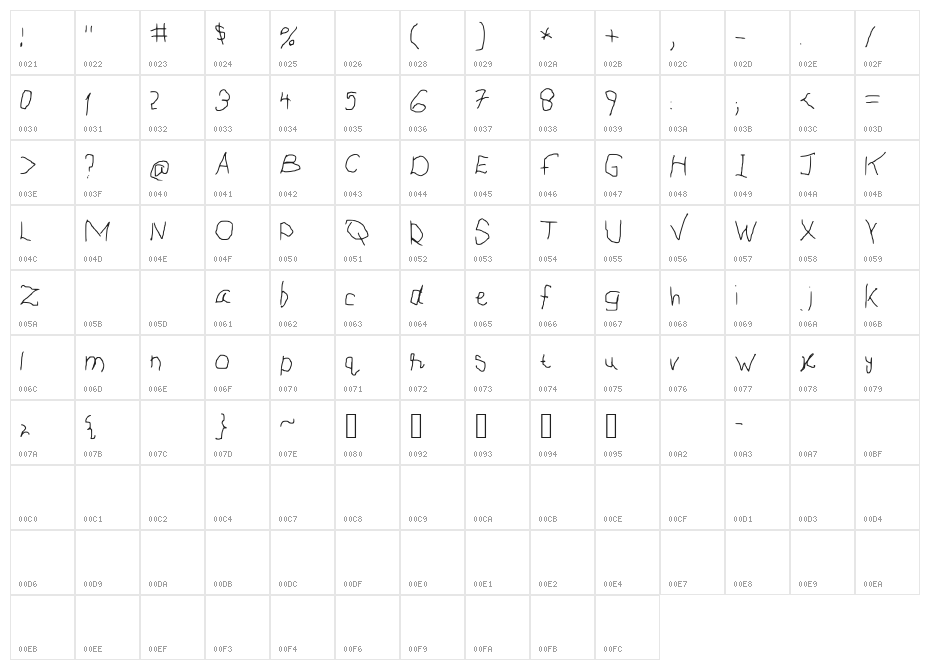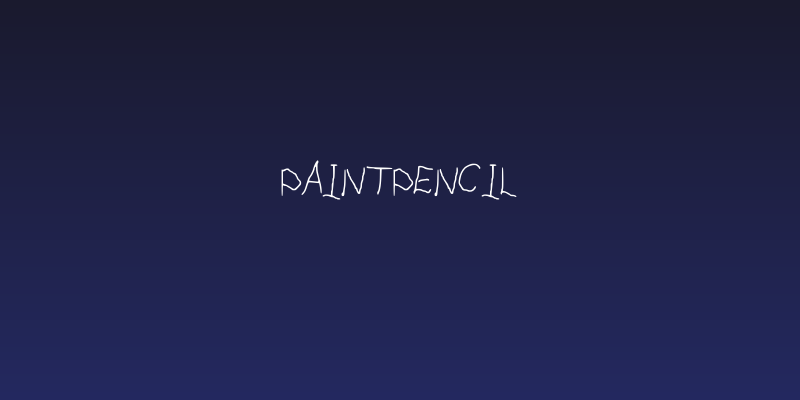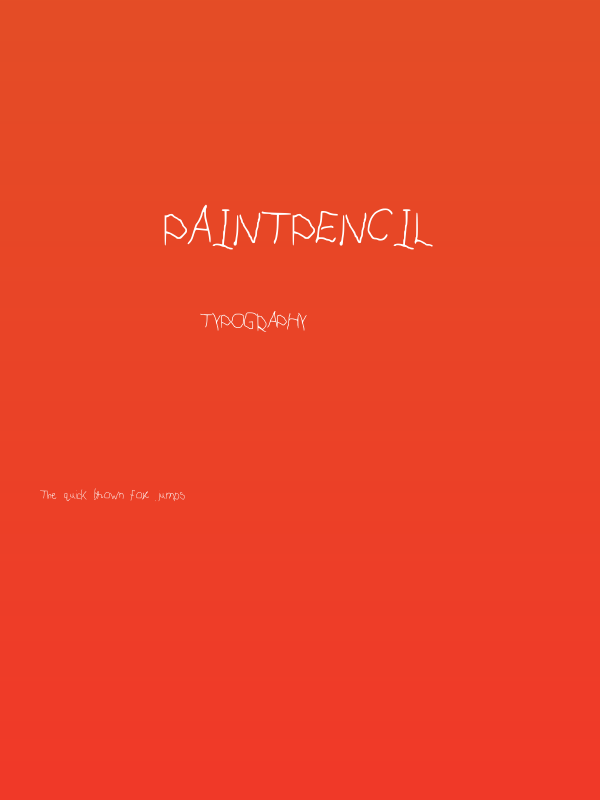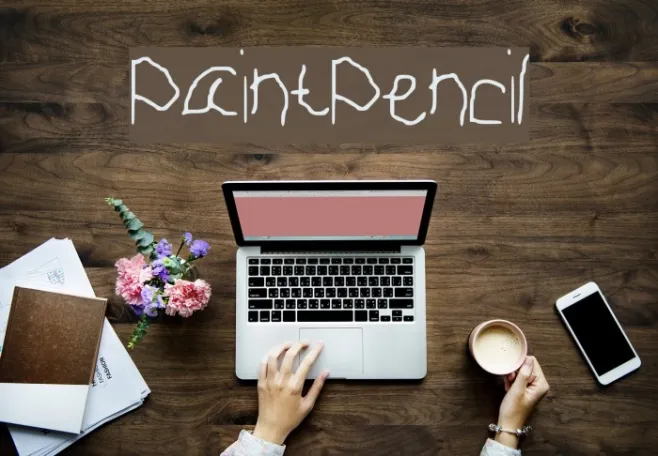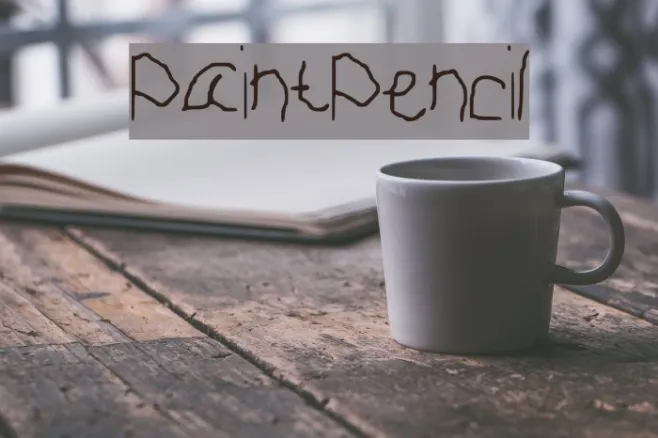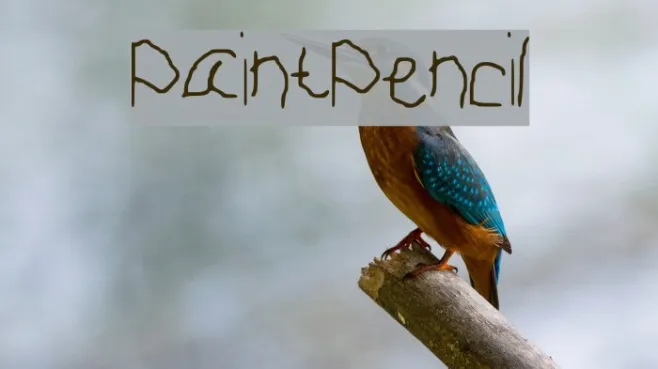
PaintPencil Font
PaintPencil Description
This font exudes a playful and artistic vibe, reminiscent of hand-drawn sketches with a pencil. The characters are irregular and slightly wobbly, giving them a unique, organic feel. The strokes are uneven, mimicking the natural pressure variations of a hand-drawn line. This style is informal and creative, ideal for projects that require a personal touch. The font maintains legibility despite its quirky design, making it suitable for various creative applications.